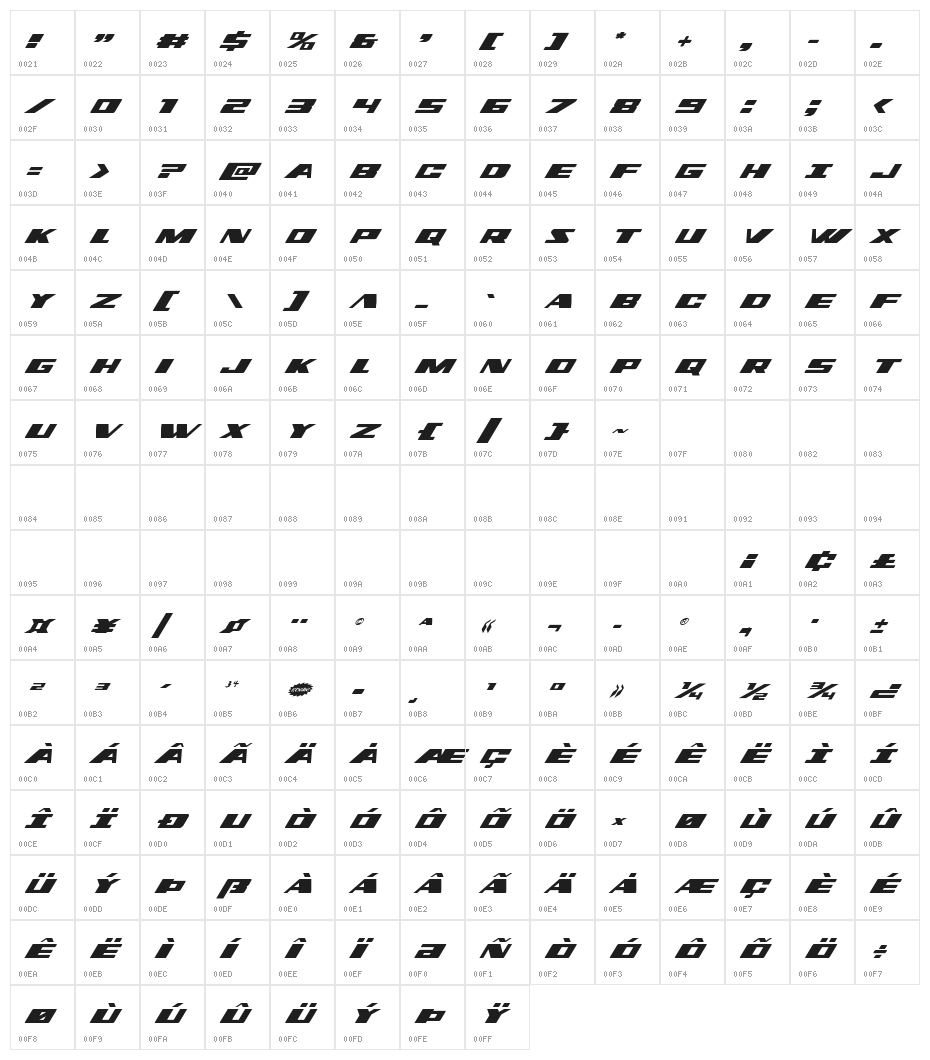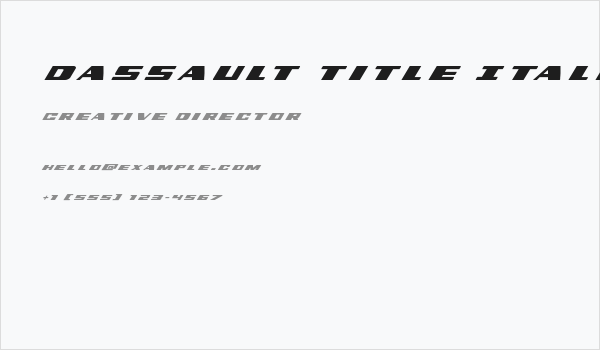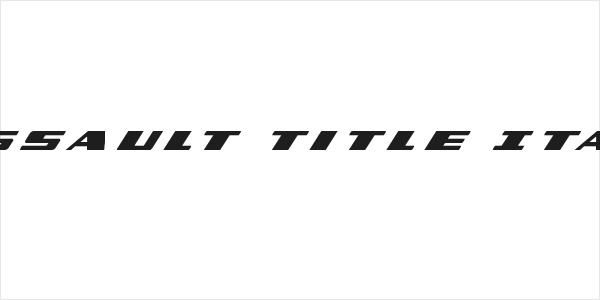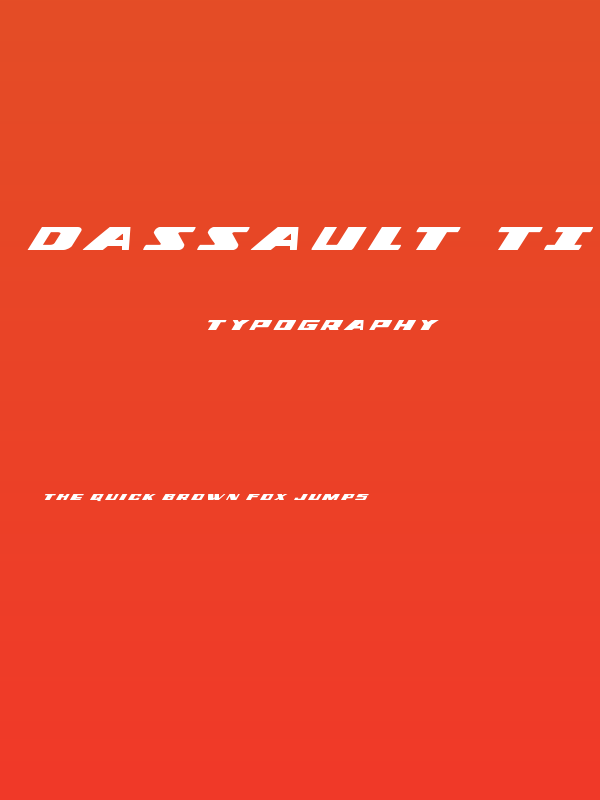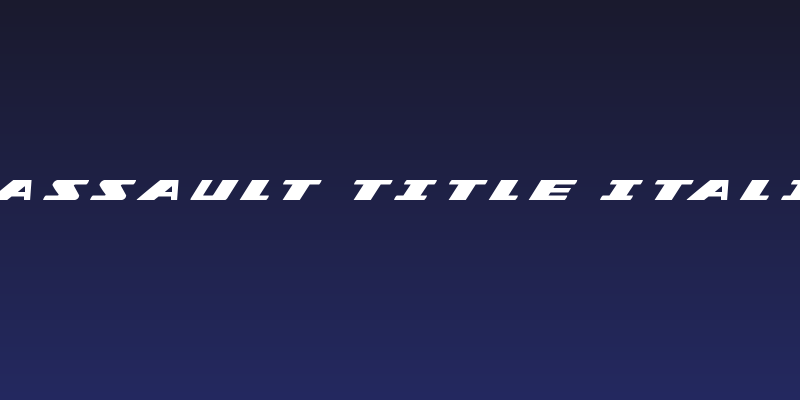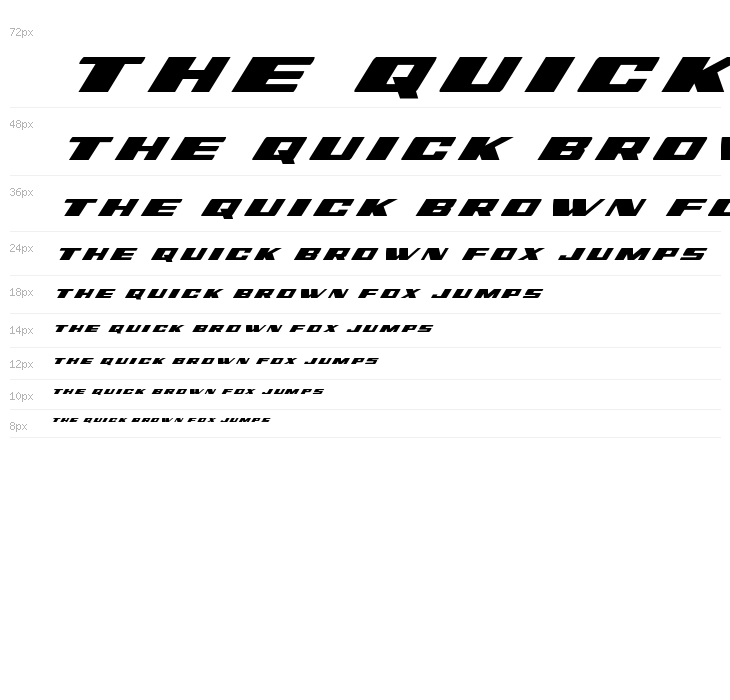
Dassault Title Italic Font
Dassault Title Italic Description
This font features a bold, italicized style with a strong, angular design. The characters are sharply defined with a futuristic and dynamic appearance, making it ideal for projects that require a modern and edgy look. The uppercase and lowercase letters maintain a consistent slant, enhancing the italic effect. The numerals and special characters follow the same design principles, ensuring uniformity across all glyphs. The font's bold weight and italic style contribute to its striking presence, suitable for attention-grabbing headlines or titles.
Proposed ProjectsIdeal for sci-fi themed projects, technology branding, sports team logos, and dynamic headlines.